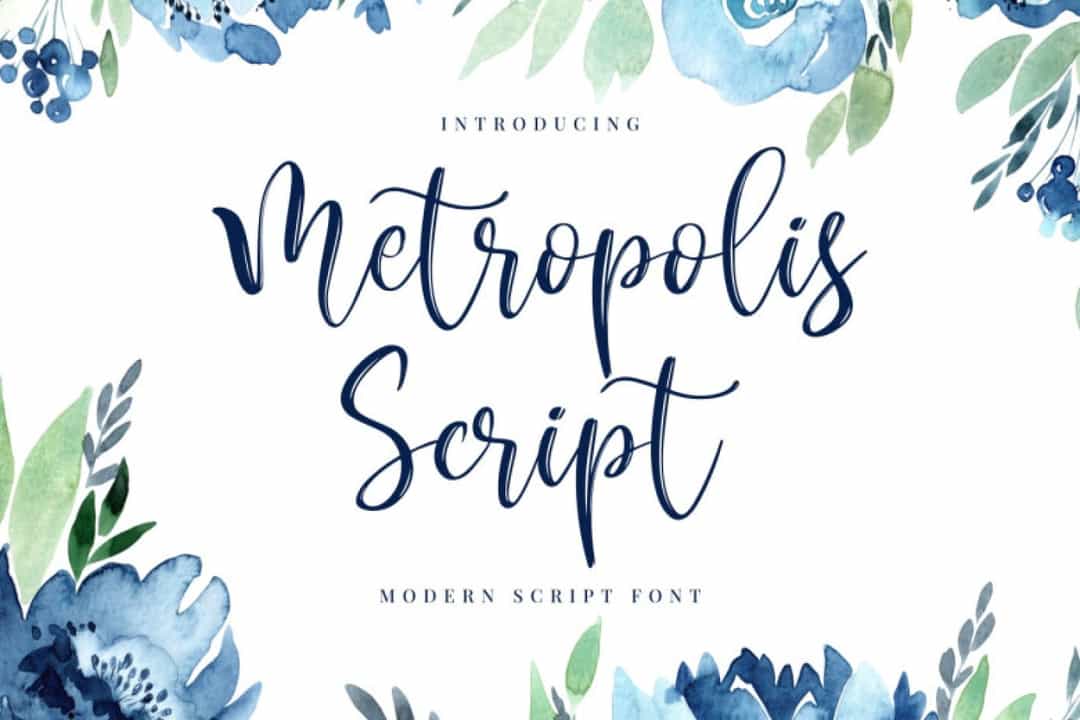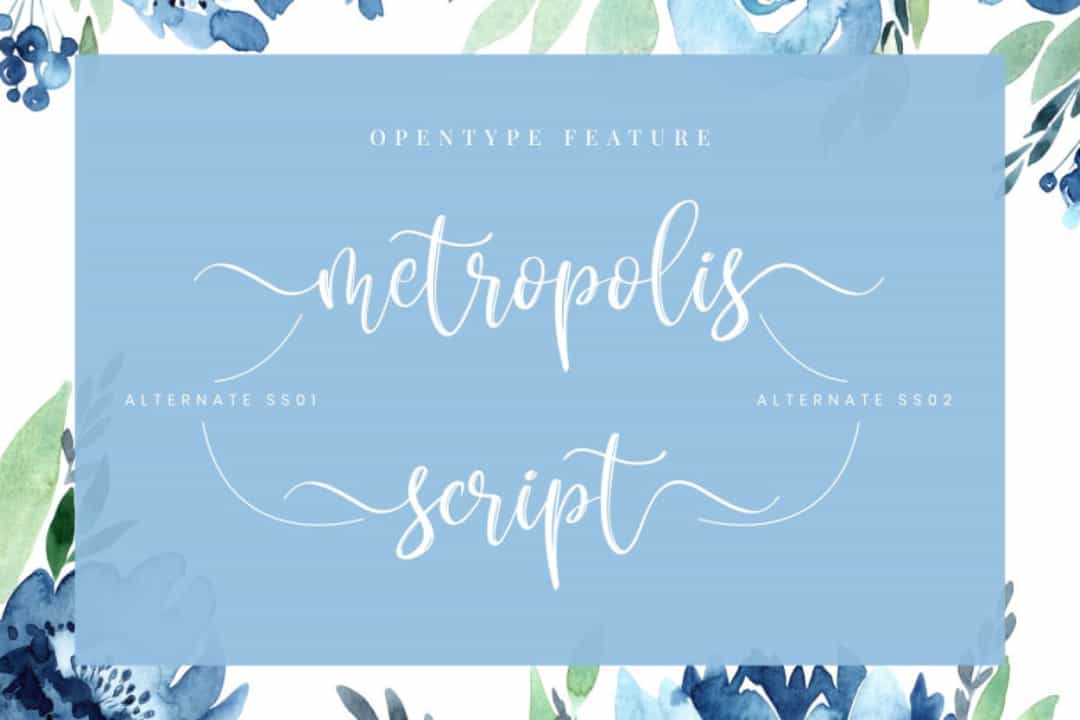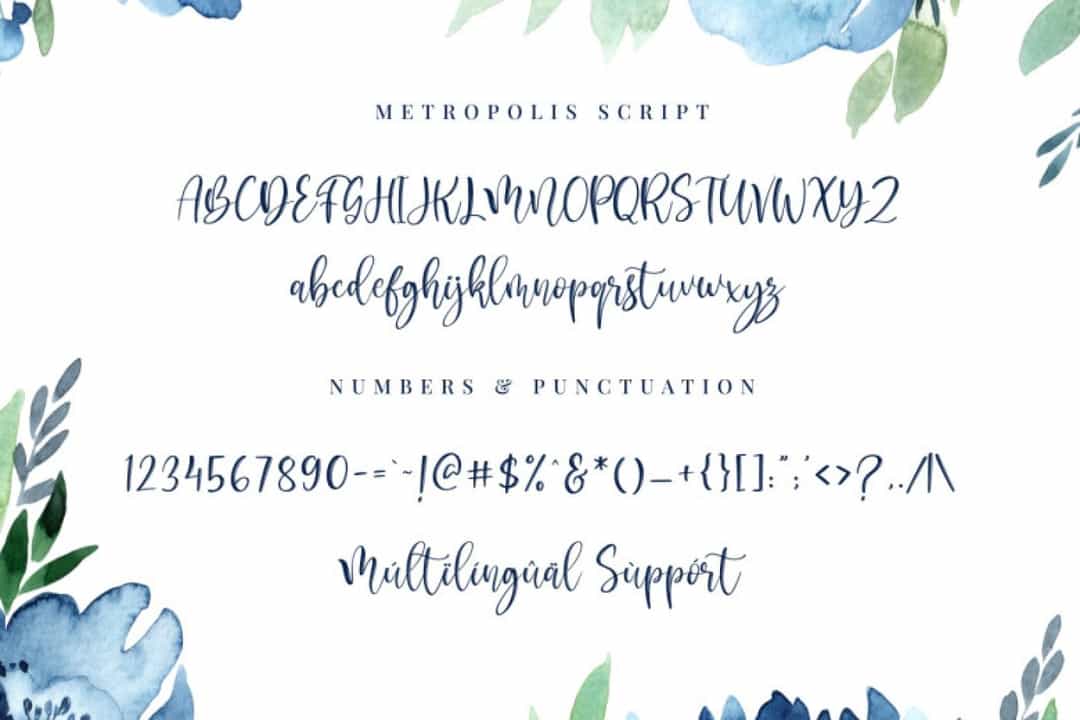
Metropolis is a brush script font that holds an exceptional beauty and Unique is a Modern calligraphy typeface, which combines calligraphy Writing Style. It can be used for many purposes. such as headline, logotype, wedding invitation, t-shirt, letterhead, lable, news, posters, nametags etc.